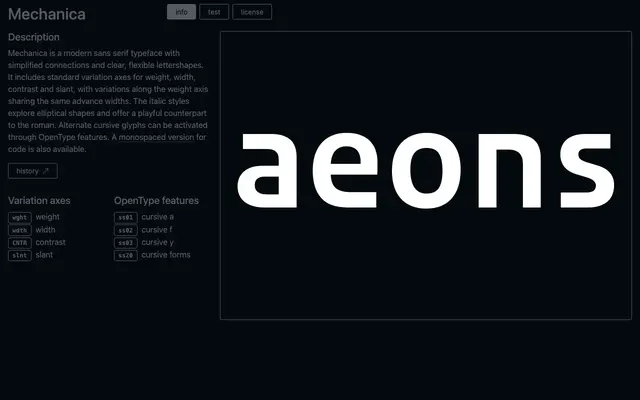
Mechanica
A variable sans serif from Hipertipo with axes for weight, width, contrast and slant, plus a monospaced variant for code.
Built around simplified connections and clear lettershapes, Mechanica offers four standard variation axes while keeping advance widths consistent across weight changes, which aids layout stability. The italic cuts introduce elliptical shapes and optional cursive alternates for a, f and y via OpenType features, giving the roman a more playful companion. A dedicated monospaced version extends the family into code and technical contexts.
Mechanica is described as a modern sans serif with simplified connections and clear lettershapes, pointing to a geometric or rationalist approach; the variable axes for weight, width, contrast and slant, along with elliptical italic forms, reinforce a contemporary geometric classification.